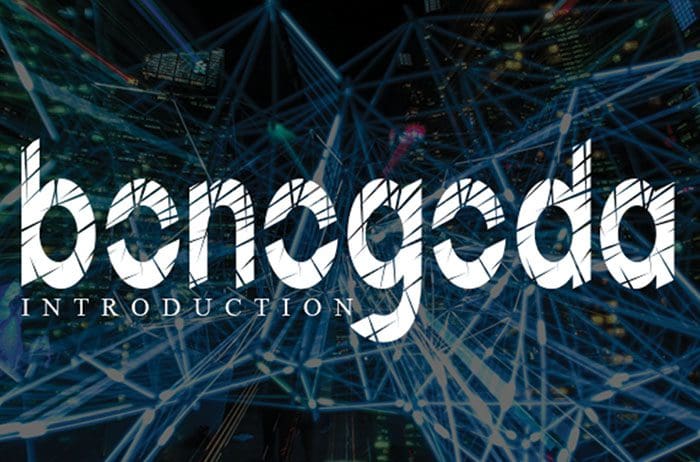
Free Bonogoda Serif Font
Bonogoda Serif Font
Free Bonogoda is a serif font. It is the perfect choice for any spooky project, such as posters, films and Halloween cards! This font is available only for personal use. Designed this font by Andika Studio. You can also search more freeĀ Serif Fonts.